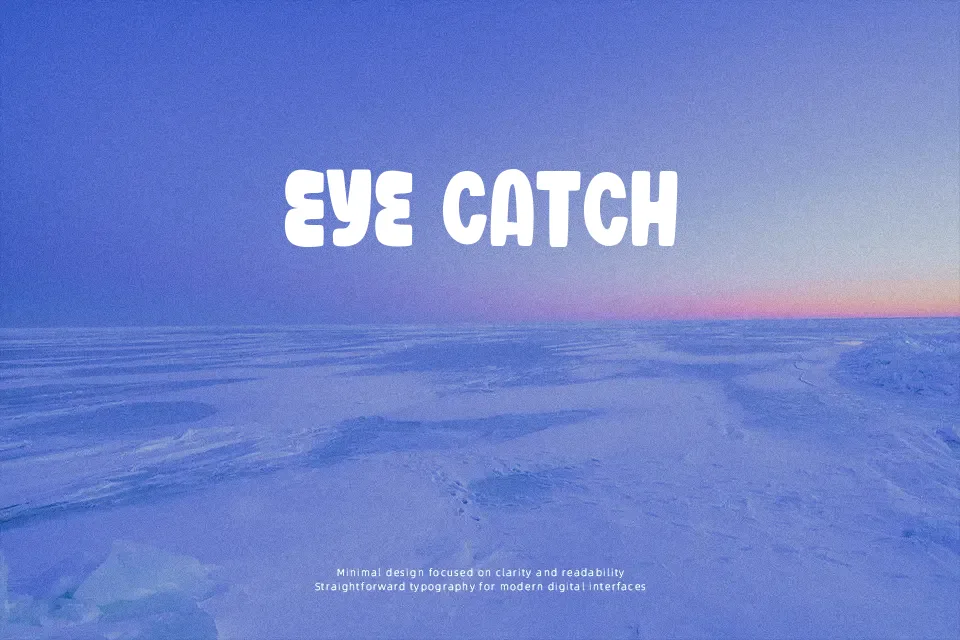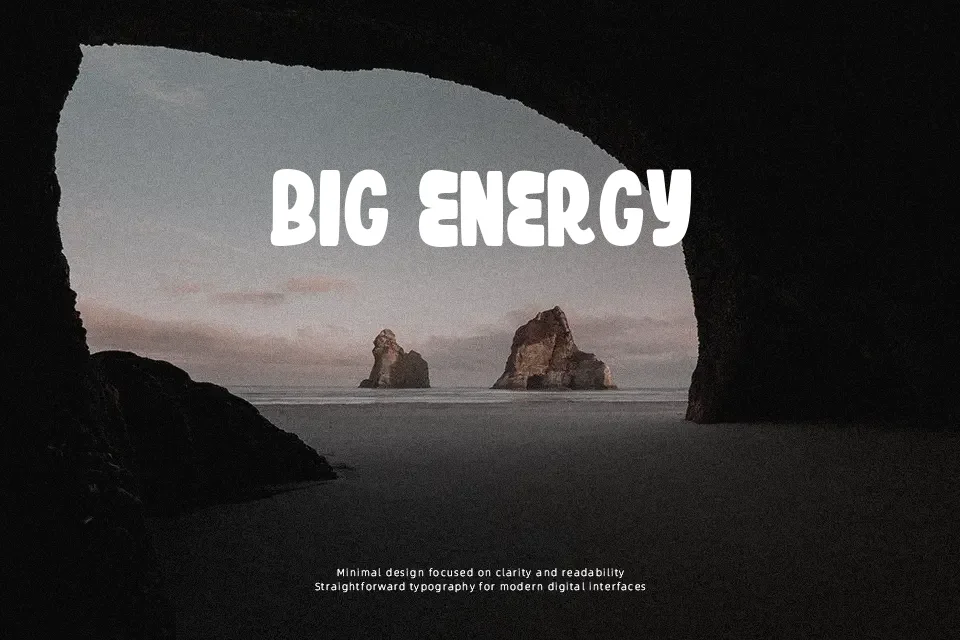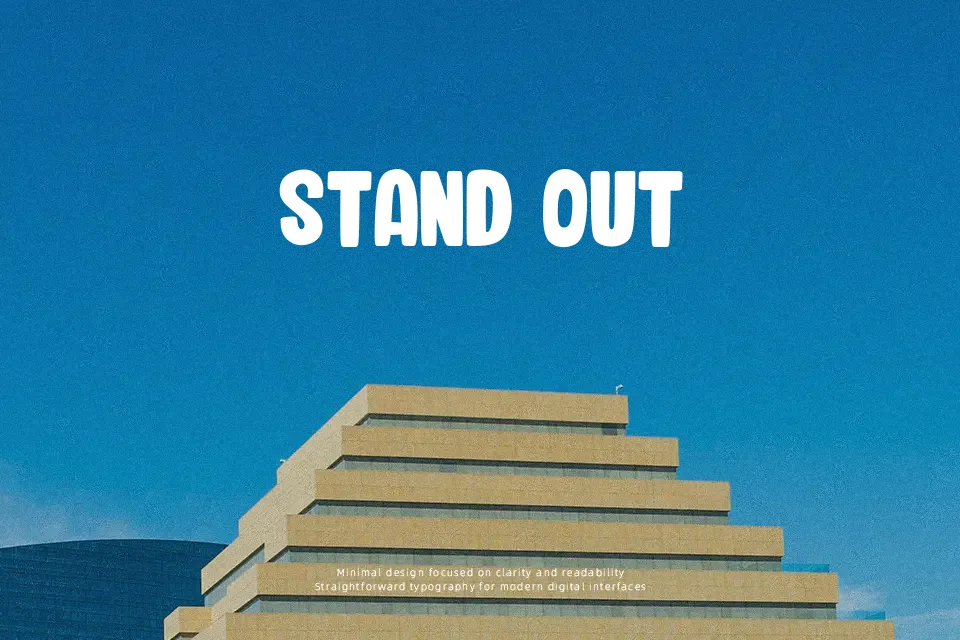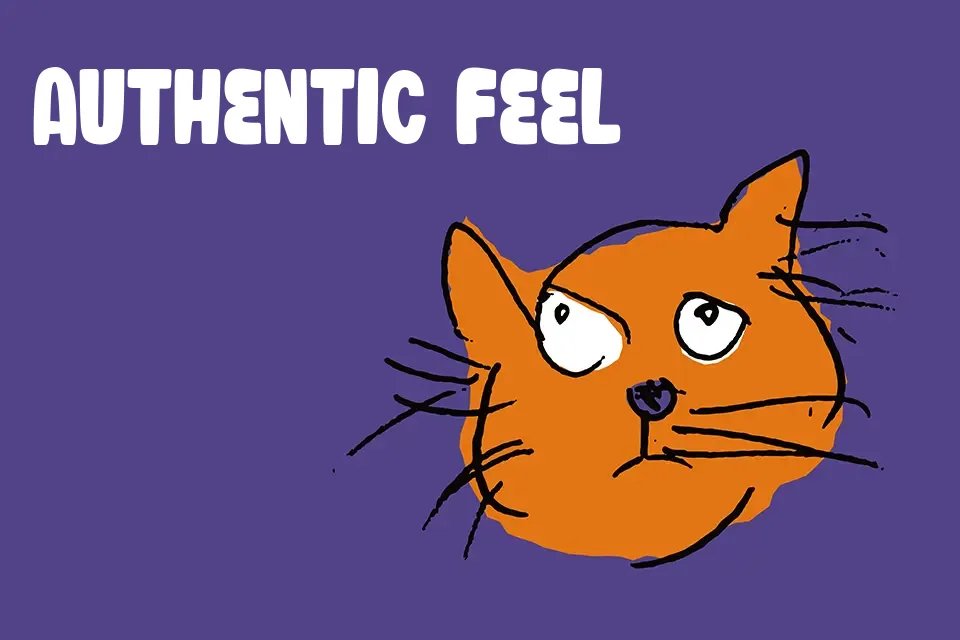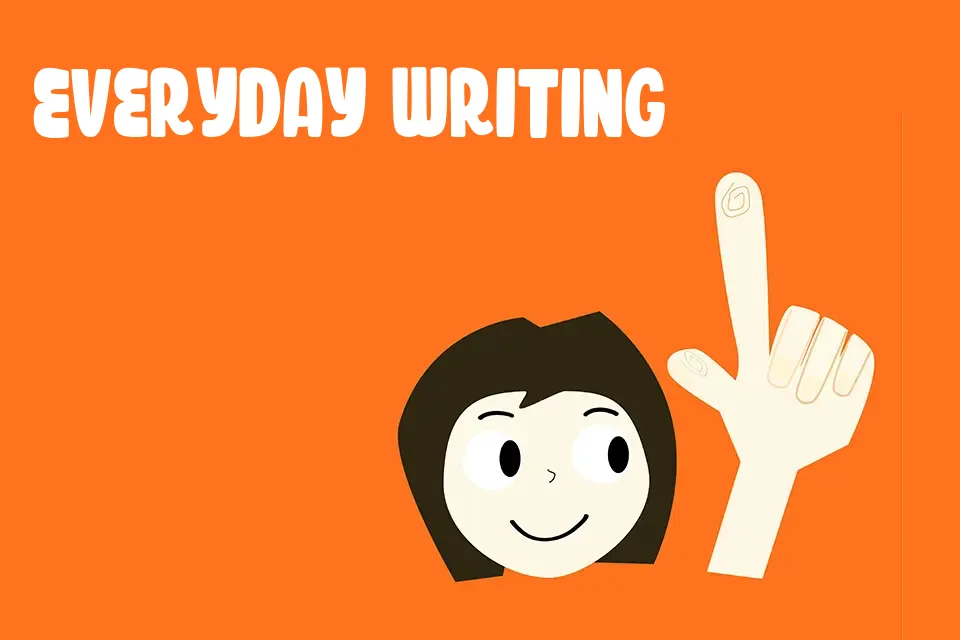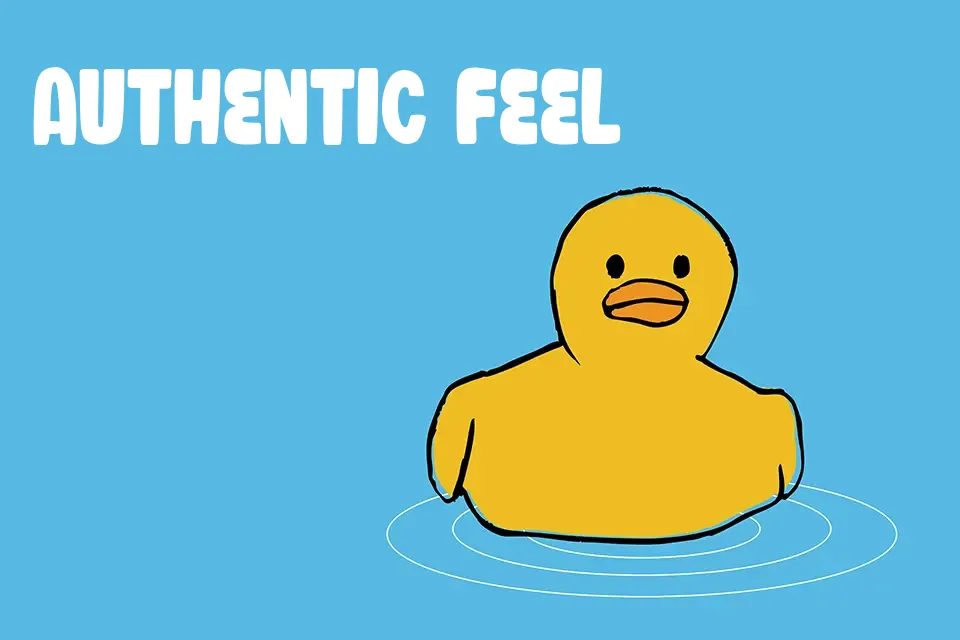
Blankboard Font
Blankboard Font delivers a spirited, marker-inspired aesthetic defined by its thick, rounded strokes and slightly irregular, bouncy letterforms. This handwritten display typeface naturally radiates a cheerful and highly energetic personality, mimicking the spontaneous feel of a classroom whiteboard or a comic strip speech bubble. The robust weight and casual spacing ensure strong legibility when applied to large formats like gaming channel thumbnails, colorful packaging for toys, or vibrant event posters. While it shines in these lighthearted contexts, the font’s inherently informal and loud character makes it unsuitable for serious corporate branding, dense editorial body text, or luxury fashion labels. Compared to standard geometric sans-serifs, it offers a much more approachable and wonderfully unpolished human touch.
– Eye-catching video thumbnails and gaming content
– Vibrant children’s product packaging
– Casual event posters and comic book titles
– Playful social media campaign graphics
– Extended paragraphs in printed books
– Formal corporate or legal documentation
– High-end luxury brand identities
Perfect for branding, gaming, and kids, with a creative and cartoon style.